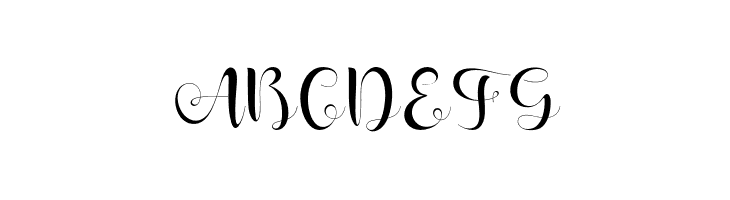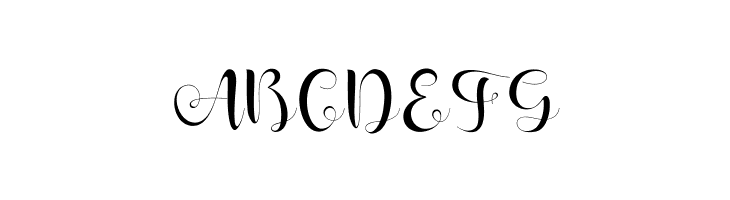
An elegant script font with flowing, ornate swashes and flourishes.
An elegant script font with flowing, interconnected letters and decorative swashes.